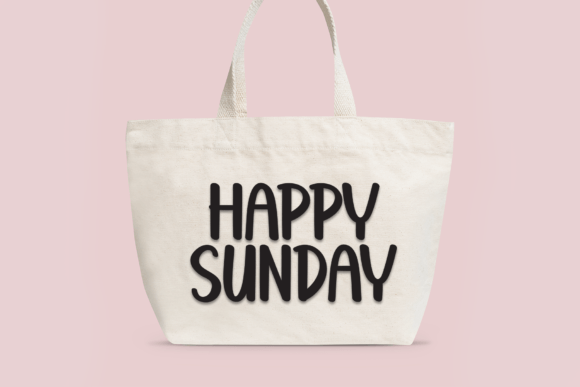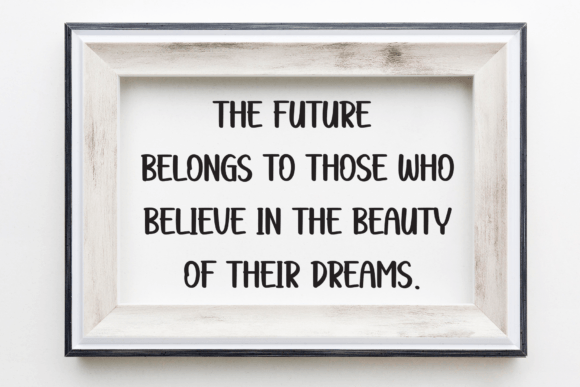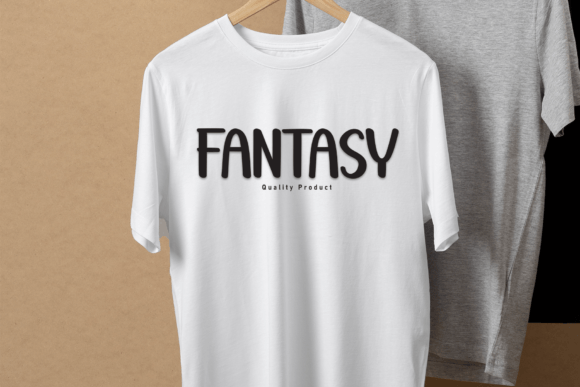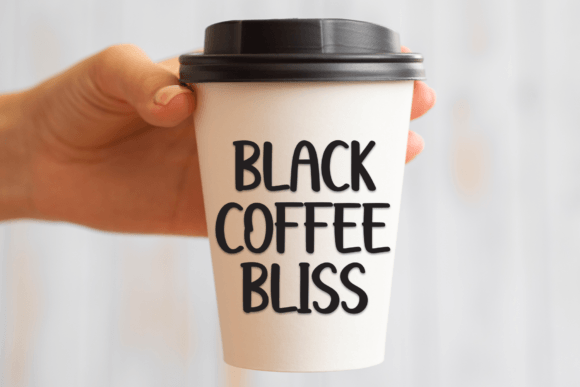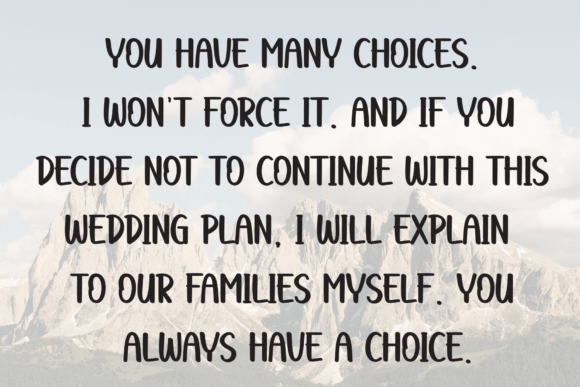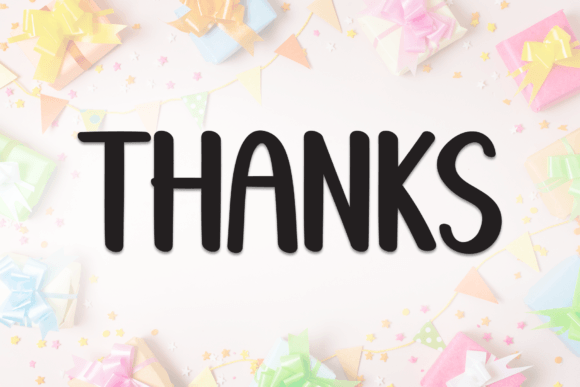
Introducing Birthday Font: The Sweet and Friendly Handwritten Font for Joyful Designs
Are you looking for a font that can add a touch of warmth and playfulness to your designs? Look no further than the Birthday Font, a sweet and friendly handwritten font that’s perfect for creating joyful and celebratory designs. In this article, we’ll dive into the world of Birthday Font, exploring its features, uses, and benefits for designers and crafters.
What is Birthday Font?
Birthday Font is a delightful handwritten font that’s designed to bring a smile to your face. With its cute and fun appearance, this font is ideal for writing wedding invitations, cards, or any other design that might need a fun touch. Whether you’re a designer, crafter, or DIY enthusiast, Birthday Font is sure to become your go-to font for creating joyful and celebratory designs.
So, what makes Birthday Font so special? Here are some of its key features:
- Handwritten appearance: Birthday Font has a beautiful, handwritten appearance that’s perfect for creating personal and heartfelt designs.
- Cute and fun: This font is designed to be playful and fun, making it ideal for designs that require a lighthearted touch.
- Versatile: Birthday Font can be used for a wide range of designs, from wedding invitations and cards to party decorations and social media graphics.
- Easy to read: Despite its playful appearance, Birthday Font is easy to read and understand, making it perfect for designs that require a clear message.
Uses of Birthday Font
So, how can you use Birthday Font in your designs? Here are some ideas to get you started:
- Wedding invitations: Add a touch of romance and whimsy to your wedding invitations with Birthday Font.
- Birthday cards: Create personalized birthday cards that are sure to delight the recipient.
- Party decorations: Use Birthday Font to create fun and playful party decorations, such as banners, garlands, and signs.
- Social media graphics: Add a playful touch to your social media graphics, such as Facebook posts, Instagram stories, and Twitter headers.
- Crafting projects: Use Birthday Font to add a personal touch to your crafting projects, such as scrapbooking, card making, and DIY gifts.
Benefits of Using Birthday Font
So, why should you choose Birthday Font for your designs? Here are some benefits to consider:
- Unique and playful: Birthday Font adds a unique and playful touch to your designs, setting them apart from more traditional fonts.
- High-quality: Birthday Font is a high-quality font that’s designed to produce clear and crisp results, even at small sizes.
- Versatile: This font can be used for a wide range of designs, making it a great addition to any designer’s or crafter’s font library.
Tips for Using Birthday Font
Here are some tips for using Birthday Font in your designs:
- Pair with other fonts: Experiment with pairing Birthday Font with other fonts to create interesting and dynamic designs.
- Use in combination with images: Use Birthday Font in combination with images to create visually appealing designs that tell a story.
- Experiment with colors: Try out different colors and color combinations to add an extra layer of personality to your designs.
- Keep it simple: Don’t be afraid to keep your designs simple and clean, using Birthday Font to add a touch of whimsy and playfulness.
In conclusion, Birthday Font is a sweet and friendly handwritten font that’s perfect for designers and crafters who want to add a touch of joy and playfulness to their designs. With its cute and fun appearance, versatile uses, and high-quality results, Birthday Font is sure to become a favorite in your font library.